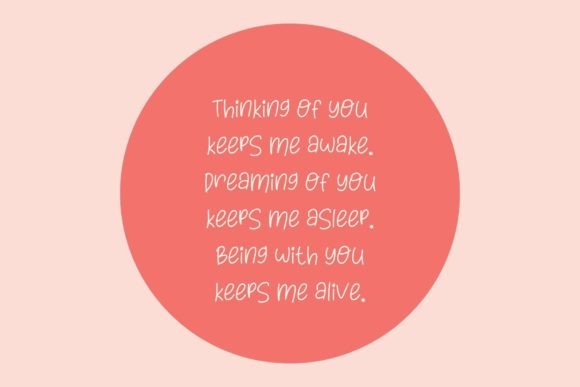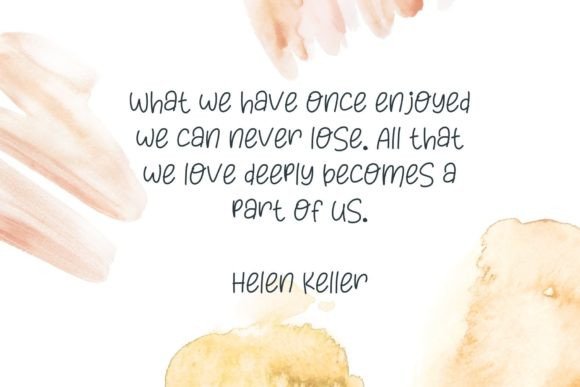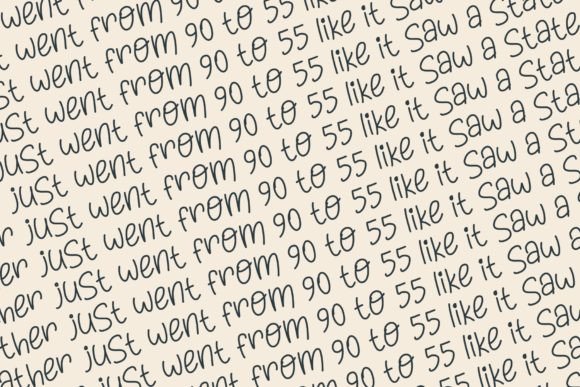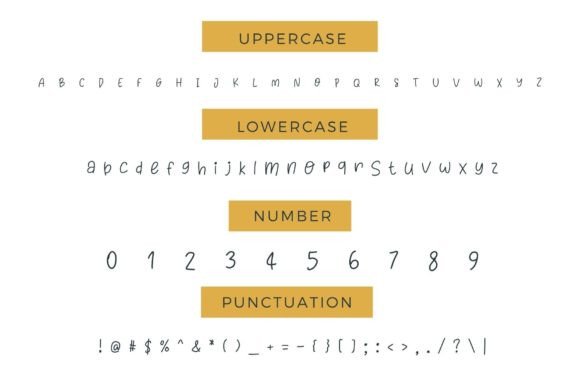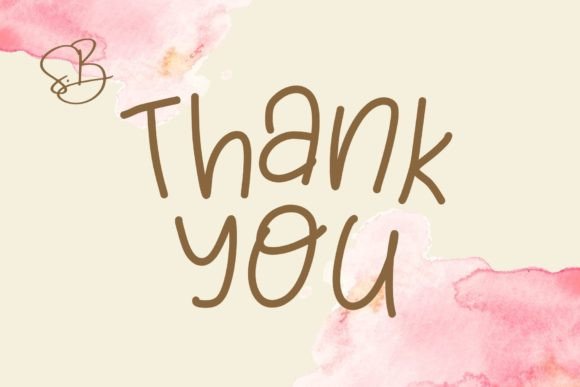
Dustin Font: The Cute Handwritten Font for Your Creative Projects
Are you looking for a font that embodies playfulness and authenticity? Look no further than the Dustin Font! This cute handwritten font is perfect for adding a personal touch to your designs, and it’s versatile enough to be used in a wide range of projects. In this article, we’ll explore the features and benefits of the Dustin Font, and show you how to make the most of it in your creative endeavors.
What is Dustin Font?
Dustin Font is a carefully crafted handwritten font that exudes a sense of playfulness and friendliness. Its unique and authentic style makes it perfect for designers and crafters who want to add a personal touch to their work. Whether you’re creating a blog post, logo, branding materials, ads, invitations, greeting cards, planners, photo albums, or decorations, the Dustin Font is an excellent choice.
Key Features of Dustin Font
- Handwritten style: The Dustin Font has a genuine handwritten look that adds a touch of warmth and personality to your designs.
- Playful and authentic: The font’s playful and authentic style makes it perfect for creative projects that require a friendly and approachable tone.
- Versatile: The Dustin Font can be used in a wide range of projects, from digital designs to print materials.
- Easy to read: The font is clear and easy to read, making it perfect for body text and headings.
Benefits of Using Dustin Font
So why choose the Dustin Font for your creative projects? Here are just a few benefits of using this amazing font:
- Adds a personal touch: The Dustin Font adds a personal touch to your designs, making them more relatable and engaging.
- Enhances creativity: The font’s playful and authentic style can inspire creativity and help you think outside the box.
- Perfect for branding: The Dustin Font is perfect for creating unique and memorable branding materials that reflect your personality and style.
- Great for digital and print materials: The font can be used in both digital and print materials, making it a versatile addition to your design toolkit.
How to Use Dustin Font in Your Designs
Using the Dustin Font in your designs is easy! Here are a few tips to get you started:
- Pair it with other fonts: The Dustin Font pairs well with other fonts, so feel free to experiment with different combinations to find the perfect look for your project.
- Use it for headings and body text: The font is clear and easy to read, making it perfect for both headings and body text.
- Add it to your branding materials: Use the Dustin Font to create unique and memorable branding materials, such as logos, business cards, and letterheads.
- Experiment with colors and textures: The Dustin Font looks great in a variety of colors and textures, so don’t be afraid to experiment and find the perfect look for your project.
In conclusion, the Dustin Font is a versatile and charming handwritten font that’s perfect for adding a personal touch to your creative projects. Its playful and authentic style makes it ideal for a wide range of designs, from blog posts and logos to invitations and decorations. With its ease of use and flexibility, the Dustin Font is a great addition to any designer’s toolkit. So why wait? Add the Dustin Font to your designs today and enjoy the results!
Whether you’re a designer, crafter, or DIY enthusiast, the Dustin Font is sure to become a favorite in your creative arsenal. Its unique and authentic style will help you stand out from the crowd and add a personal touch to your designs. So go ahead, get creative, and make the most of the Dustin Font!